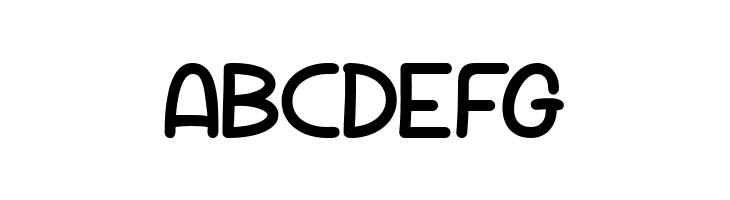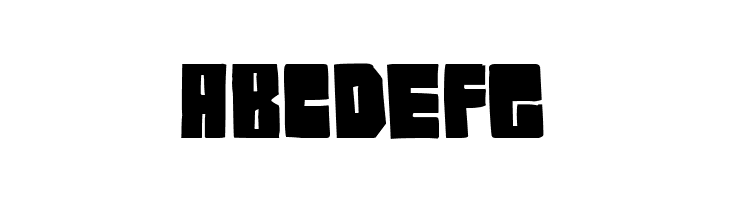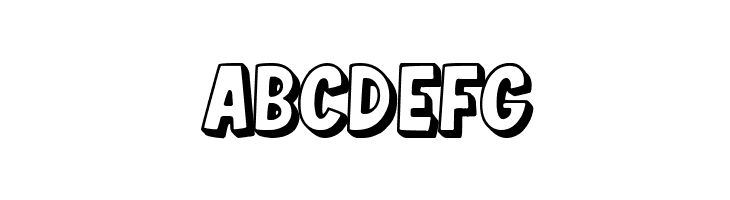
( Fonts by PressGang Studios )
A bold, blocky font with a playful, comic-like style.
( Fonts by PressGang Studios )
A bold, italicized block font with sharp angles and a modern style.
( Fonts by dcoxy )
A playful, rounded font with bold, smooth curves and a whimsical charm.
A bold, playful font with a shadowed, three-dimensional effect.